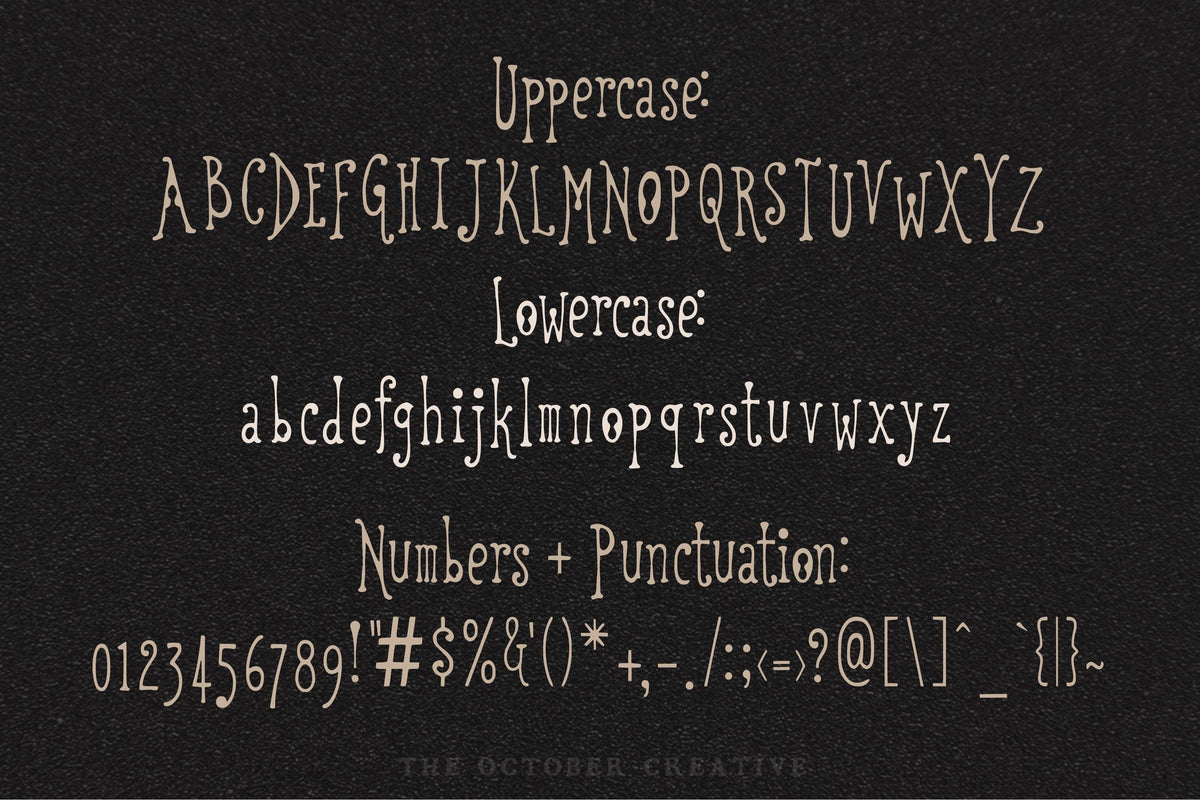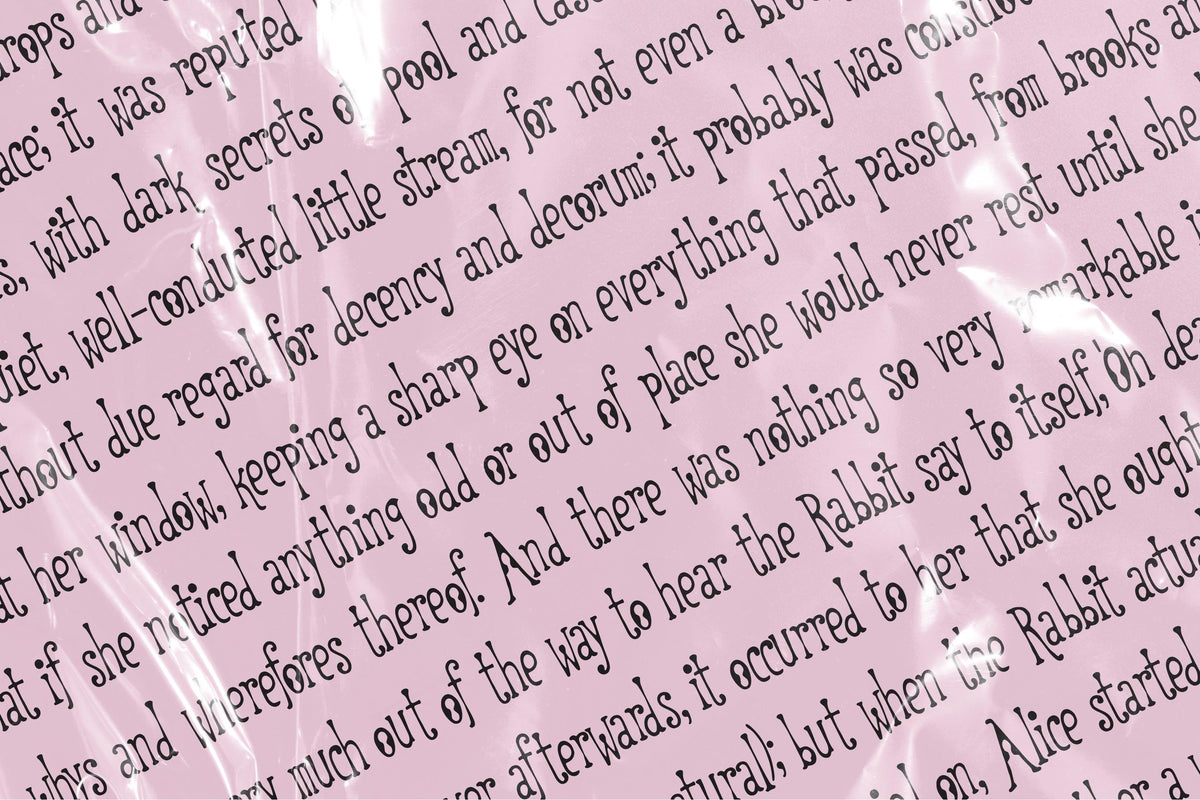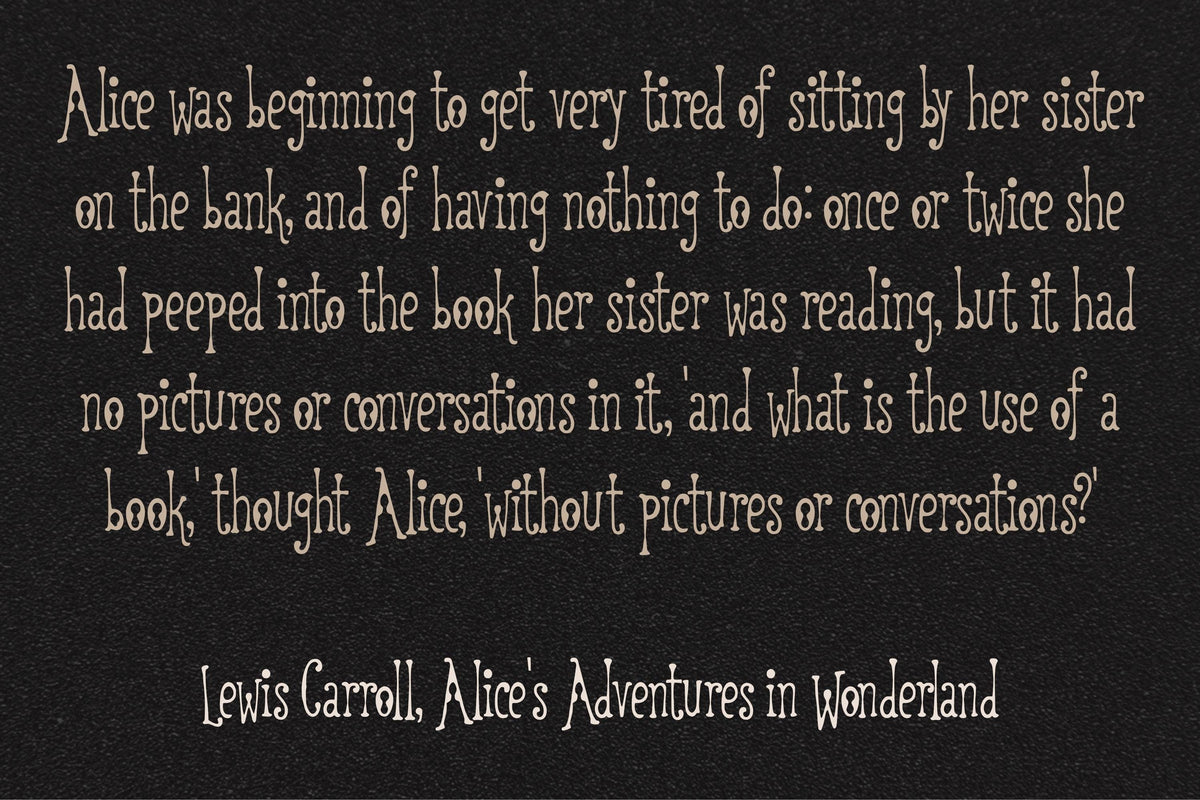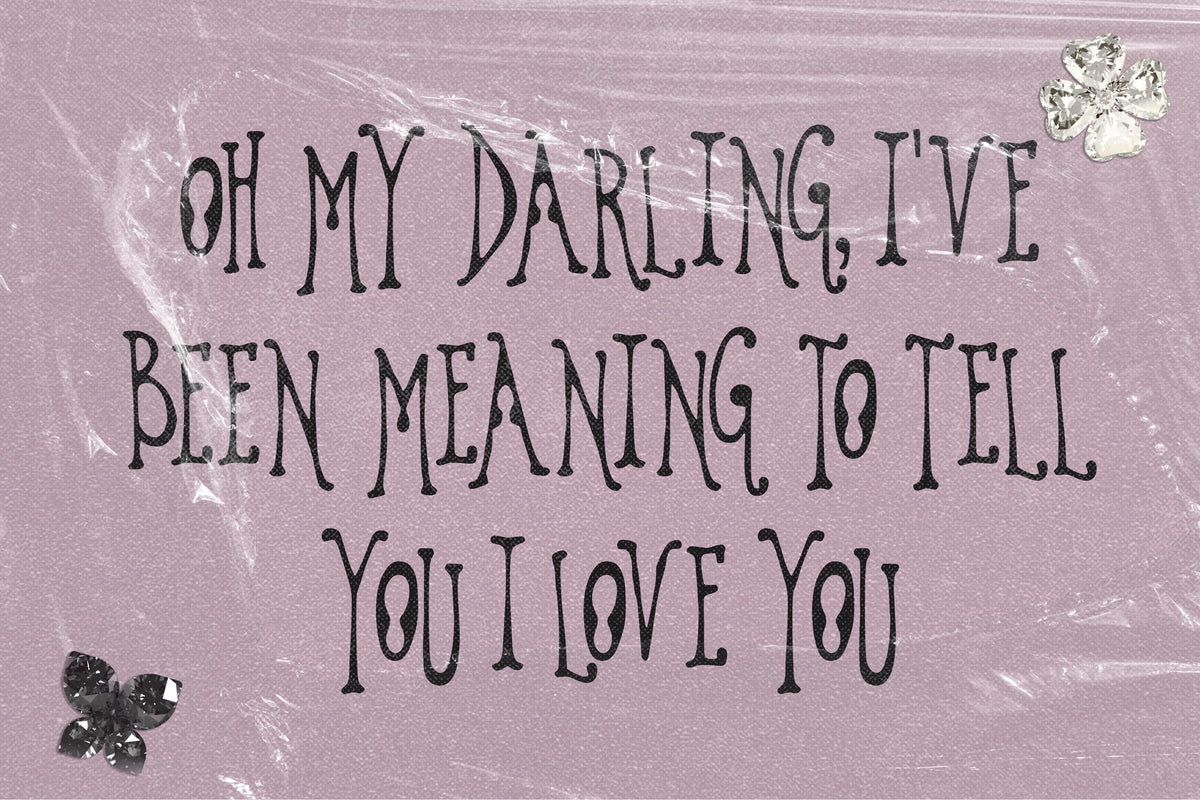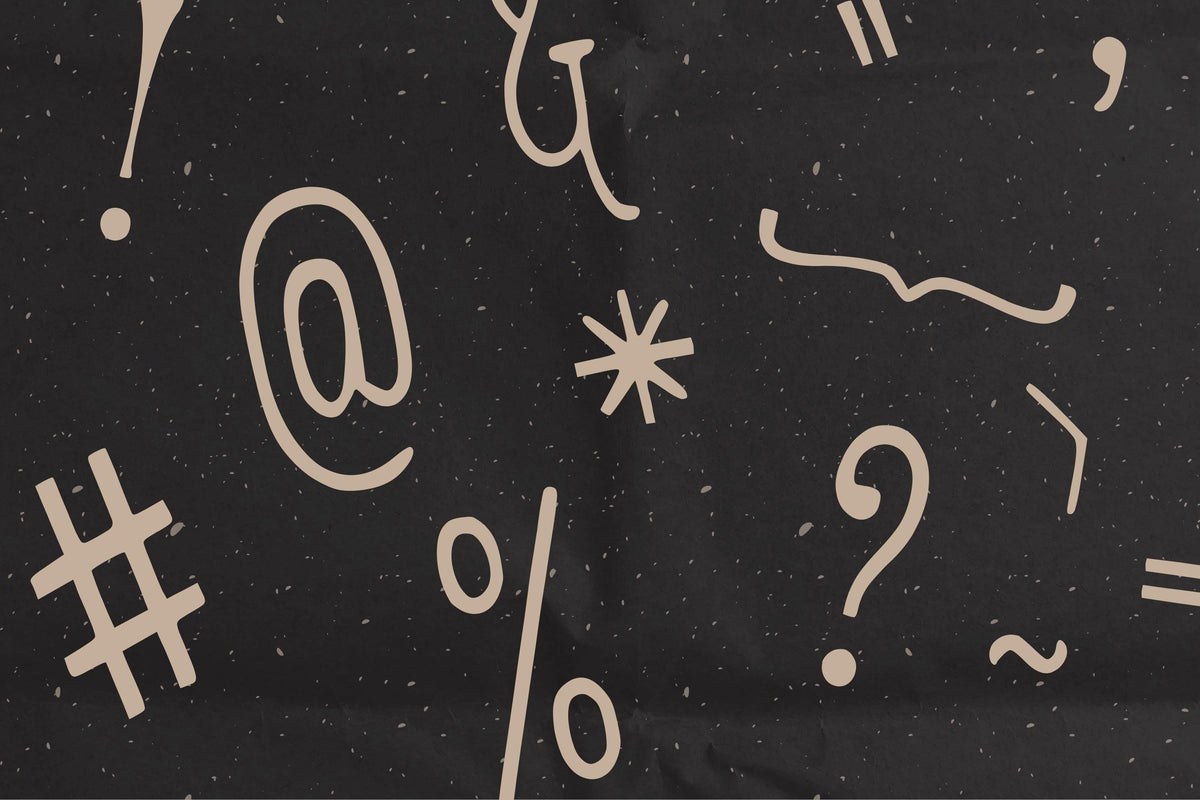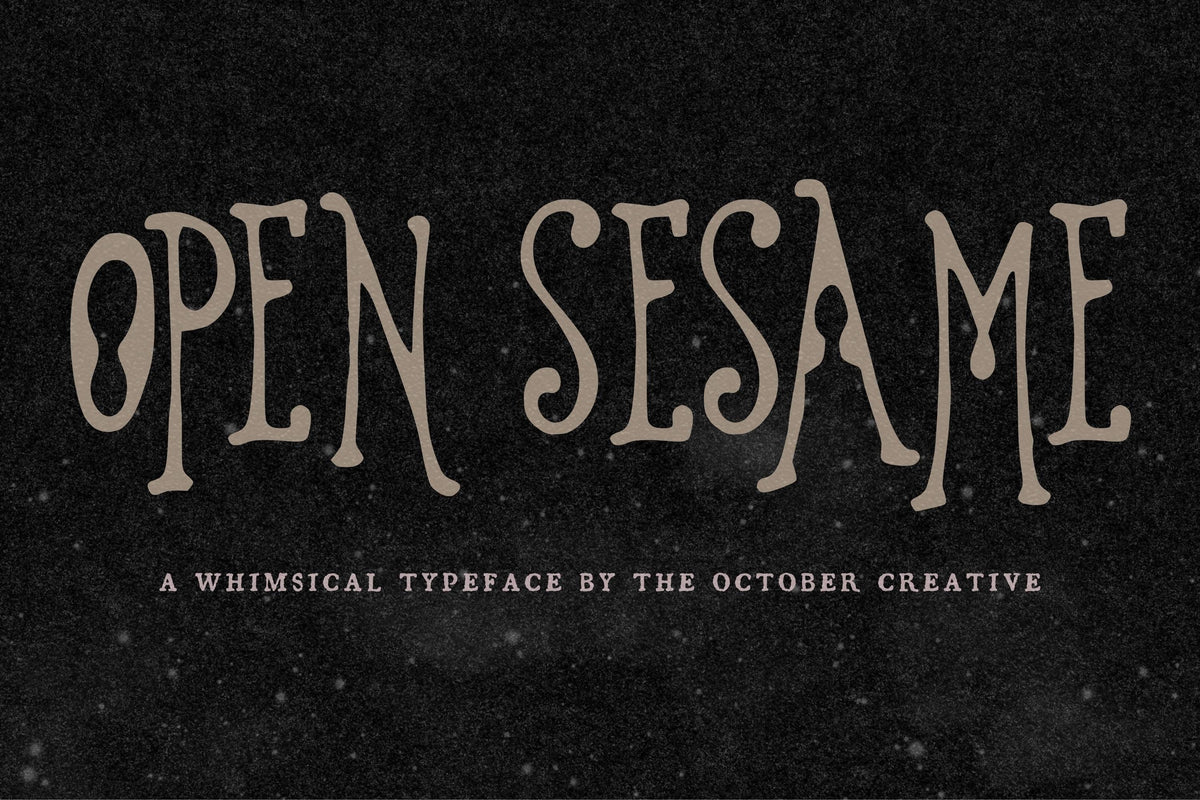
Open Sesame Font
Open Sesame brings softly rounded retro letters to storybook covers, chapter headings, and playful invitations. It's a welcoming choice for the first words of an adventure, whether that's a children's story or a birthday treasure hunt.